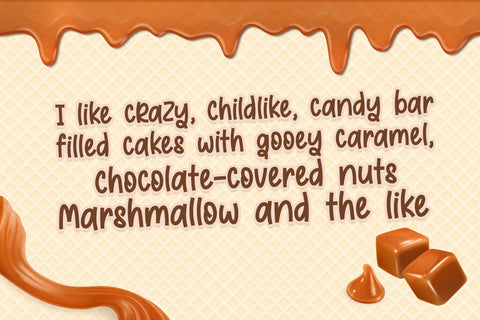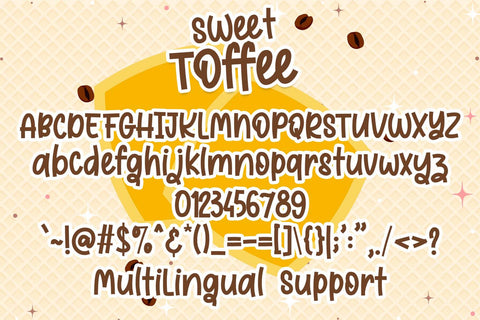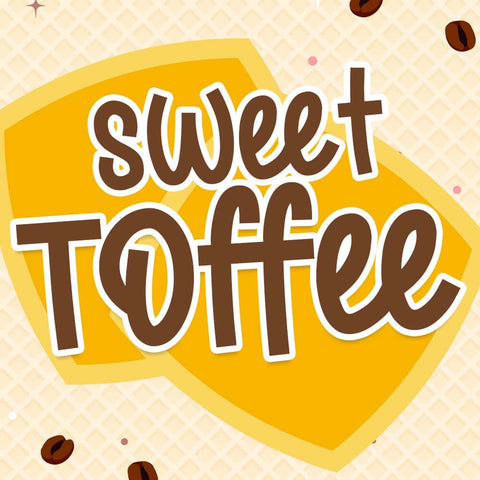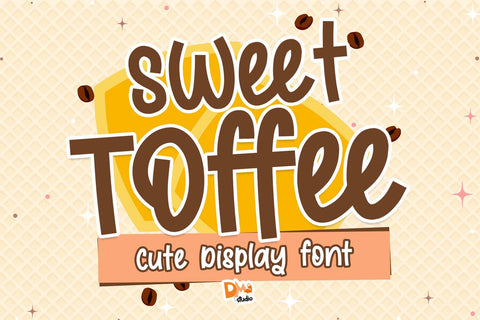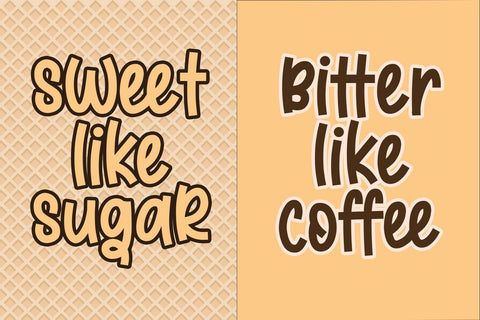
Sweet Toffee Font
Sweet Toffee Font is a delectable and versatile typeface designed to infuse your creative projects with a warm and inviting vibe. With its smooth letterforms and sweet style, this font is perfect for various applications, from branding to social media graphics. Elevate your designs with the delightful and comforting aesthetic of Sweet Toffee Font.
- Warm and Inviting Design: Sweet Toffee Font boasts a warm and inviting design that adds a touch of sweetness to your text.
- Versatility in Application: Ideal for a wide range of design projects, from branding to social media graphics, creating a comforting and friendly atmosphere.
- Uppercase and Lowercase Letters: Both uppercase and lowercase letters included for creative flexibility.
- Punctuation and Symbols: Comprehensive set of punctuation marks, numerals, and symbols for consistent and versatile use.